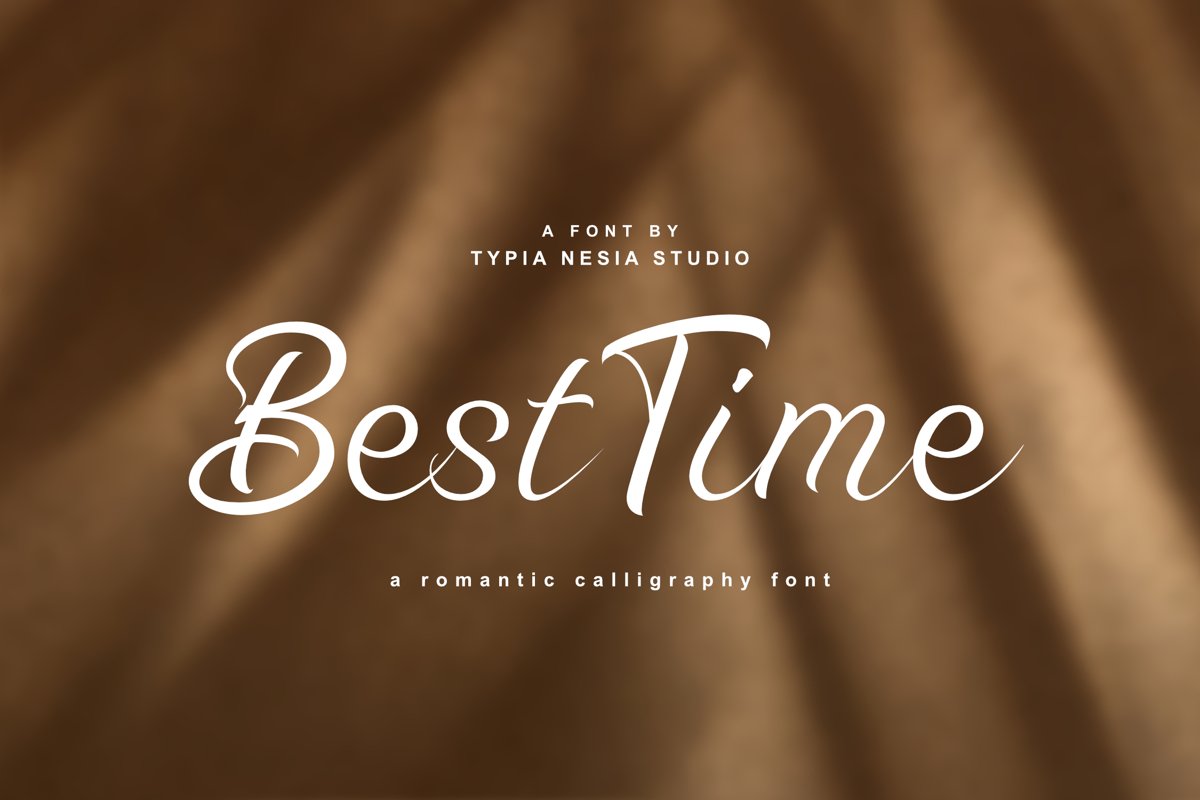
Best Time Beautiful Calligraphy Font - Romantic Script Font
It is suitable for any design needs, modern invitation design, branding, stationery design, blog design, modern advertising design, invitation, Art Quote, Home decor, Book/Cover Title, Invitation, special events, birthday, custom mug, pillow, t-shirts, any brush lettering needs and more.
Best Time